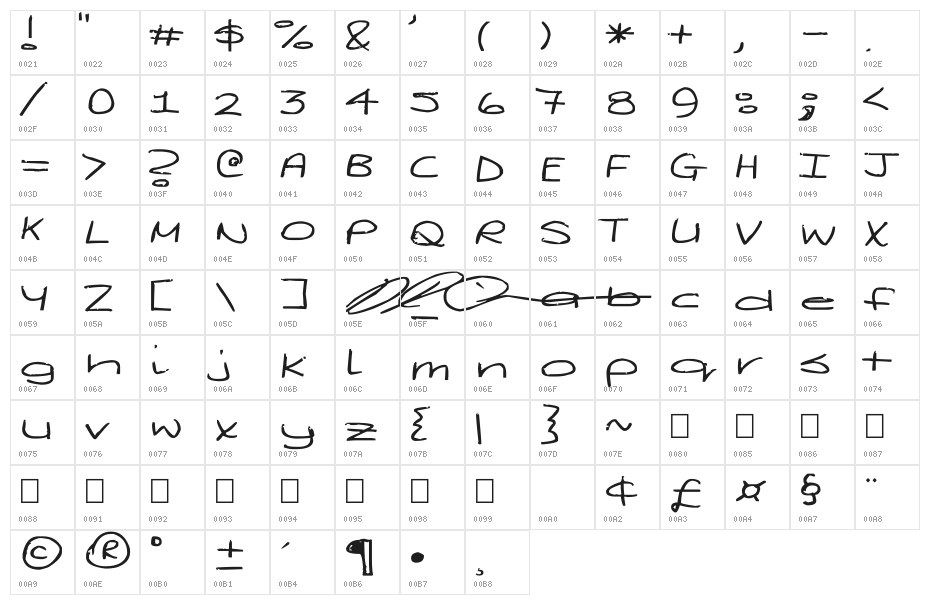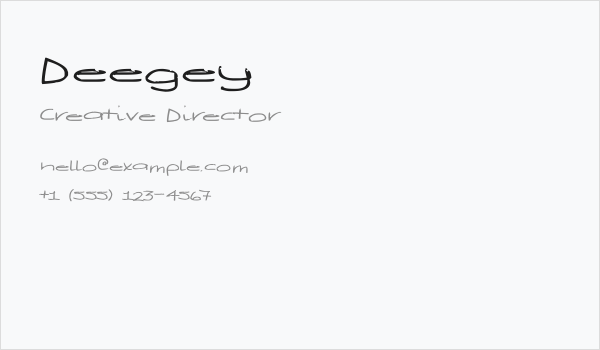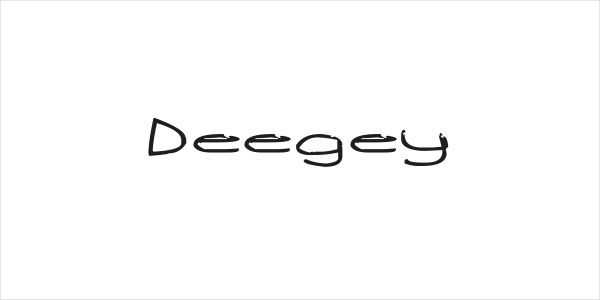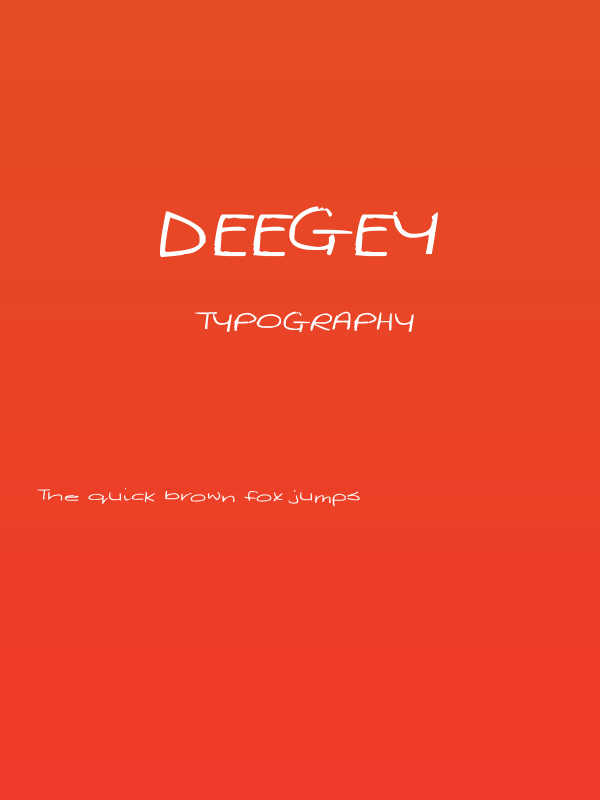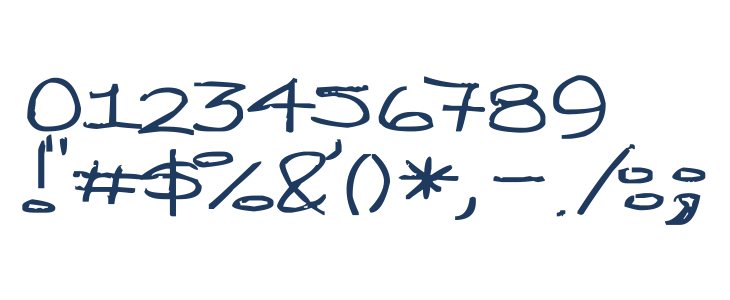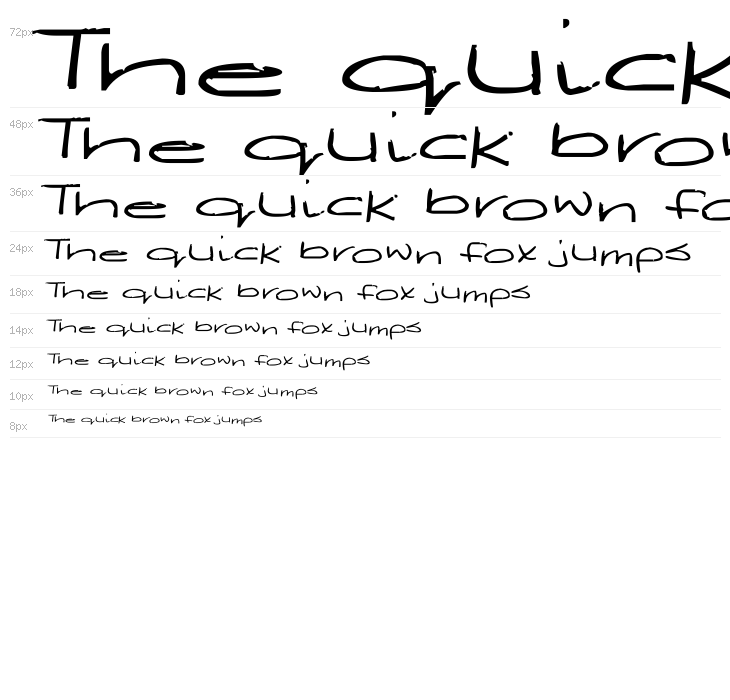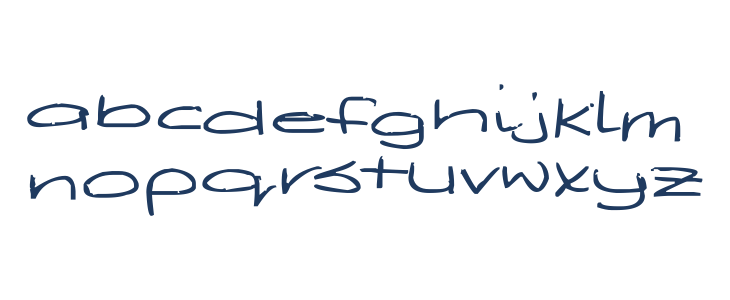
Deegey Font
Deegey Description
This font features a playful and casual handwritten style, characterized by its irregular strokes and slightly tilted letters. The uppercase and lowercase letters maintain a consistent flow, giving it a natural and organic appearance. The numbers and special characters complement the overall style, adding to its informal and approachable feel. The font's design is reminiscent of quick, expressive handwriting, making it suitable for projects that require a personal touch. Its unique character shapes and varying line thicknesses contribute to its dynamic and lively aesthetic.